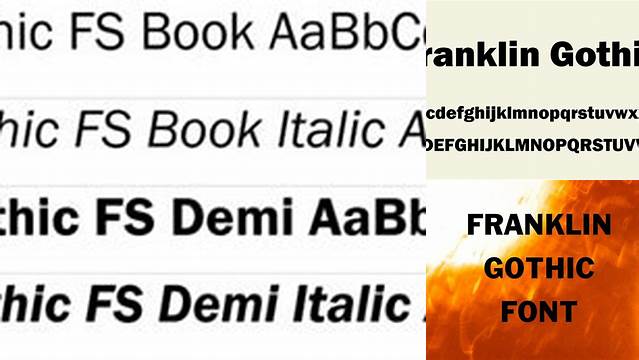
Franklin Gothic Heavy Font: Free Download & Usage
Hey guys! Today, we're diving deep into the world of typography with a focus on a real heavyweight champion: Franklin Gothic Heavy. You know, that bold, impactful font that just screams authority and readability? Well, if you've ever wondered where to snag this bad boy for free and how to best use it, you've come to the right place. We're going to cover everything from finding legit free downloads to making sure you're using it right in your projects. So, buckle up, because we're about to unlock the power of Franklin Gothic Heavy!
Exploring Alternatives to Franklin Gothic Heavy
Sometimes, even with a diligent search for a Franklin Gothic Heavy font free download, you might not find exactly what you're looking for, or perhaps the licensing just doesn't fit your needs. That's totally fine, guys! The world of typography is vast, and there are tons of other fonts out there that offer a similar vibe to Franklin Gothic Heavy. Franklin Gothic Heavy is known for its condensed, bold, and highly legible sans-serif characteristics. It's a workhorse font, great for headlines, subheadings, and any text that needs to grab attention while remaining clear. If you're looking for alternatives, consider fonts that share these traits. For instance, Bebas Neue is a very popular free option that's super condensed and bold, perfect for impactful headlines. Oswald is another excellent choice, also condensed and available on Google Fonts, offering a slightly different geometric feel. Montserrat, particularly its bolder weights, can also serve as a good substitute, providing a modern geometric sans-serif look. Raleway is another versatile font available on Google Fonts that has a clean, elegant feel and comes in various weights that can mimic some of Franklin Gothic's boldness. If you're aiming for a more classic, condensed feel, try searching for "condensed bold sans-serif" on font sites. You might discover hidden gems that perfectly capture the essence you're after. The key is to identify what you love about Franklin Gothic Heavy – is it the extreme condensed nature? The sheer boldness? The slightly retro, industrial feel? – and then look for fonts that share those specific characteristics. Don't be afraid to experiment! Sometimes, an alternative font can bring a fresh perspective to your design. So, even if the perfect Franklin Gothic Heavy font free download eludes you, don't sweat it. There are plenty of other fantastic fonts ready to make your projects shine. It's all about finding the right tool for the job, and sometimes that means exploring beyond the obvious.
The History and Impact of Franklin Gothic
It’s pretty cool to think about the story behind the fonts we use, right? Franklin Gothic, the family to which our beloved Heavy style belongs, has a rich history that really adds to its character. Designed by Morris Fuller Benton, it was first released way back in 1903 by the American Type Founders (ATF). Now, that's a long time ago! Benton was a prolific type designer, and Franklin Gothic became one of his most enduring creations. It's a quintessential American sans-serif typeface, drawing inspiration from earlier Grotesque styles but giving them a distinctly American, robust feel. The 'Gothic' in the name was a common term for sans-serif fonts back then, not a reflection of anything sinister! The original Franklin Gothic was a versatile font, and over time, various weights and styles were added to the family to meet growing design demands. Franklin Gothic Heavy, specifically, emerged as the go-to for maximum impact. Its extremely bold weight makes it perfect for headlines, posters, and any application where you need text to stand out and be read from a distance. Its influence can be seen in countless designs, from vintage advertisements to modern branding. It embodies a sense of reliability, strength, and clarity. Knowing this history can really inform how you use the font. You understand why it feels so solid and authoritative. When you're downloading a Franklin Gothic Heavy font free download, you're not just getting characters; you're tapping into over a century of design legacy. It’s this historical weight that gives the font its timeless appeal and makes it a staple in many designers' toolkits. So, next time you use it, give a little nod to Morris Fuller Benton and the era that shaped this iconic typeface. It adds a certain depth, don't you think?
Benefits of Using Franklin Gothic Heavy in Your Designs
So, why is Franklin Gothic Heavy such a popular choice, even with all the thousands of fonts out there? Let's break down the awesome benefits this font brings to the table. Firstly, its unmatched impact and presence. This font is bold. Like, seriously bold. When you need your headline to grab attention immediately, Franklin Gothic Heavy delivers. It doesn't mess around; it commands the reader's eye. This makes it incredibly effective for posters, billboards, strong calls-to-action, and any design element that needs to make a statement. Secondly, excellent readability, even at large sizes. Despite its boldness, it maintains a remarkable clarity. The letterforms are well-defined and spaced in a way that prevents them from becoming mushy or illegible when blown up. This is crucial for headlines and titles where you need information to be instantly digestible. Thirdly, versatility in specific contexts. While it's a heavy weight, it works surprisingly well in certain applications beyond just shouting headlines. Think editorial design, strong branding elements, or even impactful subheadings when paired with a lighter font. It provides a fantastic contrast. Fourth, a sense of authority and seriousness. Franklin Gothic Heavy often conveys a feeling of trustworthiness, stability, and professionalism. This is why you see it used in corporate logos, news publications, and official documents where conveying a sense of gravitas is important. Finally, its timeless, classic appeal. It’s not a trendy font that will feel dated in a year. Franklin Gothic Heavy has stood the test of time for over a century, meaning it offers a classic, enduring aesthetic that can lend sophistication to your projects. So, when you're looking for that perfect font to make a splash, remember the power packed into a Franklin Gothic Heavy font free download. It’s a tool that can seriously elevate your design game, offering both visual punch and reliable legibility.
Enhancing Headlines with Franklin Gothic Heavy
When it comes to making your headlines pop, few fonts do it as effectively as Franklin Gothic Heavy. Guys, this font is practically designed for headlines. Its inherent boldness ensures that your title or main message immediately grabs the reader's attention. Think about it: the moment someone glances at your design, whether it's a website, a poster, or a magazine spread, the headline is the first thing they're likely to see. Using Franklin Gothic Heavy means that first impression is going to be strong, clear, and impactful. It cuts through the visual noise like a hot knife through butter. Beyond just sheer loudness, the clarity of Franklin Gothic Heavy is a huge asset for headlines. Unlike some other extremely bold fonts that can become a bit blurry or indistinct, Franklin Gothic Heavy maintains sharp, well-defined letterforms. This means your message is not only seen but also easily understood at a glance. This is critical for conveying information quickly and effectively. Furthermore, the condensed nature of many Franklin Gothic variants, including the Heavy weight, allows you to fit more information into a limited space without sacrificing readability. This is a lifesaver for designers working with tight layouts or needing to make a big statement in a small area. When you pair this font with a contrasting, lighter font for body text, the effect is even more dramatic. The bold headline draws the reader in, and the simpler body text provides the details. So, if you're aiming to create headlines that are impossible to ignore and easy to comprehend, look no further than this powerhouse font. A good Franklin Gothic Heavy font free download can be the secret weapon in your design arsenal for creating truly compelling headlines.
Using Franklin Gothic Heavy for Branding and Logos
Alright, let's talk about making a lasting impression with branding. Franklin Gothic Heavy is a serious contender when it comes to creating strong, memorable logos and brand identities. Why? Because it embodies qualities that many brands want to project: strength, reliability, and a no-nonsense professionalism. When a brand uses Franklin Gothic Heavy in its logo, it's instantly communicating a sense of solidity and trustworthiness. Think about established companies; they often gravitate towards fonts that convey stability, and this typeface fits the bill perfectly. It’s a classic for a reason – it doesn’t feel trendy or fleeting, which is exactly what you want for a long-term brand identity. For a Franklin Gothic Heavy font free download to be used in this context, you need to be extra careful about licensing, as commercial use is paramount here. But assuming you have the appropriate license, its application is brilliant. It works exceptionally well for wordmarks or logotypes where the company name itself is the primary visual element. The sheer weight and presence of the font ensure the name is instantly recognizable and impactful. It can also be used effectively as part of a larger logo system, perhaps alongside an icon, providing a solid typographic foundation. Its condensed nature can also be advantageous, allowing the brand name to fit neatly within various design applications, from business cards to website headers. Brands in industries that want to convey authority, such as finance, law, technology, or even publishing, often find Franklin Gothic Heavy to be an ideal fit. It lends an air of credibility and importance that’s hard to replicate with lighter or more decorative fonts. So, if you're building a brand that needs to feel established, powerful, and dependable, seriously consider incorporating Franklin Gothic Heavy. It’s a typographic heavyweight that can carry significant brand weight.
Bold Statements with Franklin Gothic Heavy in Print Design
When we talk about print design – think magazines, brochures, posters, and even book covers – Franklin Gothic Heavy often plays a starring role. Its power lies in its ability to make bold statements that resonate on paper. In the tactile world of print, where you have a physical object to engage with, the visual weight and clarity of a font like Franklin Gothic Heavy are even more pronounced. For magazines, it’s a go-to for stand-out headlines, section titles, and even pull quotes that need to break through the surrounding text and capture the reader's eye. The sheer force of the font ensures that the most important information isn't missed. Brochures and flyers often rely on this font to make an immediate impact, drawing potential customers in with strong calls to action or key selling points presented in bold, unmissable typography. Posters, especially for events or announcements, benefit immensely from Franklin Gothic Heavy's ability to convey information quickly and powerfully from a distance. You want people walking by to instantly grasp the essence of the event. And book covers? Using Franklin Gothic Heavy for the title can immediately convey the genre or tone of the book – perhaps a thriller, a historical account, or a work of non-fiction demanding serious consideration. The robustness of the font translates well to the physical medium of print, giving a tangible sense of importance to the text. When you’re working on a print project and need that element of undeniable presence, a Franklin Gothic Heavy font free download (again, mindful of licensing!) can be an indispensable asset. It helps ensure your message isn't just seen, but felt, on the page.
Optimizing Font Loading Speed for Web Use
If you're using Franklin Gothic Heavy on a website, web font optimization is super important, guys. Nobody likes a slow-loading page! While Franklin Gothic Heavy itself is a robust font, how you implement it can significantly impact your site's performance. First, use modern formats like WOFF2. These formats offer better compression than older formats like TTF or OTF, resulting in smaller file sizes and faster downloads for users. When defining your font with @font-face in CSS, prioritize WOFF2 and then provide WOFF as a fallback. Second, only load the weights and styles you actually use. If you only need Franklin Gothic Heavy, don't load the Light, Regular, or Bold versions if you're not using them. Each file adds to the loading time. Thirdly, consider font-display property. Adding font-display: swap; to your @font-face rule tells the browser to show text immediately using a fallback font while your custom font (Franklin Gothic Heavy) downloads in the background. Once it's ready, the text will swap to the new font. This prevents the